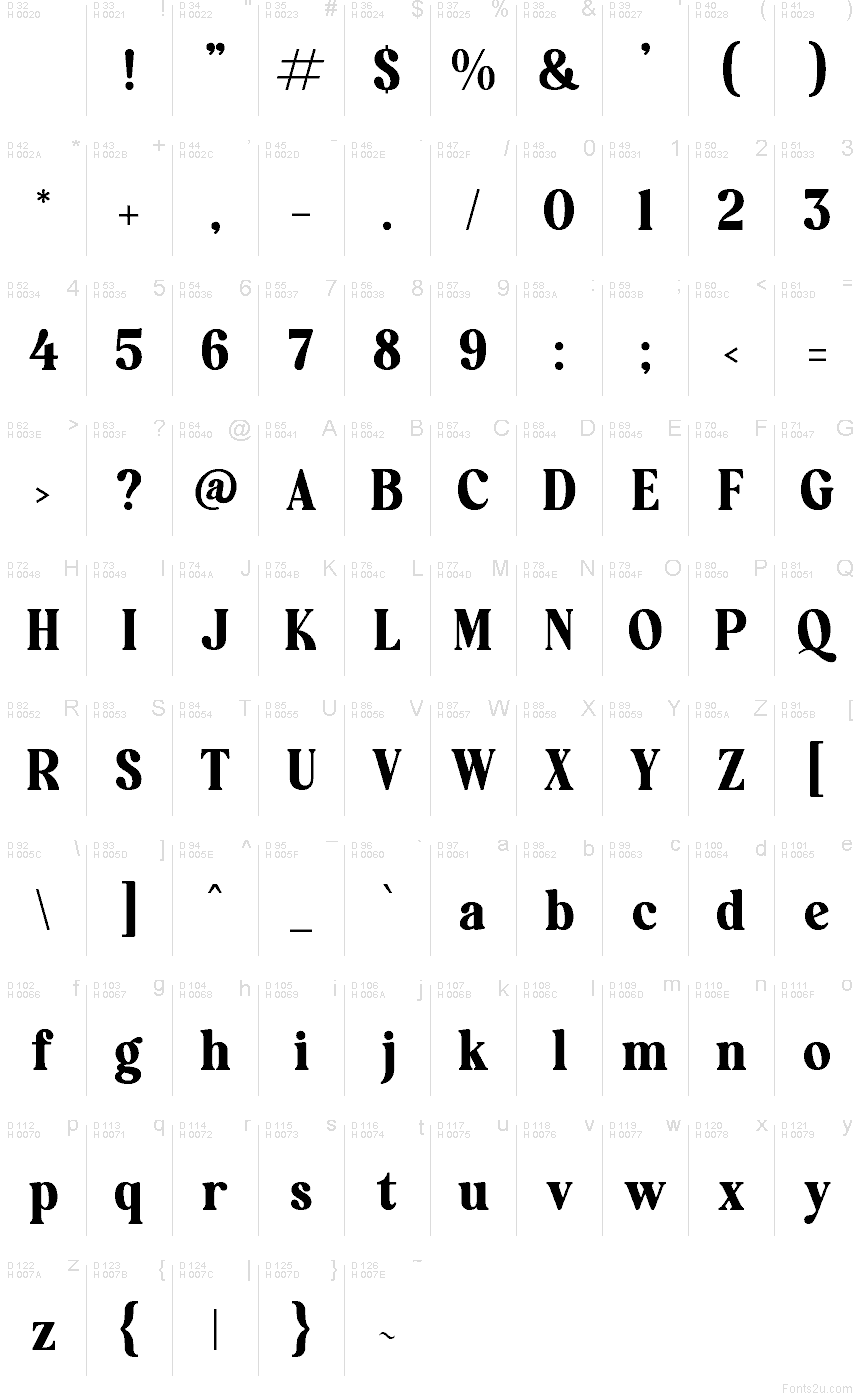
Rubita Smile by TimelessType.co is a free serif font with a warm, friendly editorial tone. The letters mix soft, rounded curves with tall, high-contrast strokes, so the font feels classic at first glance but not formal or severe.
It fits naturally in magazine headers, boutique packaging, beauty branding, book covers, and cafe menus, where that gentle contrast gives short wording a dressed-up look without going stiff. As a free font, it also makes sense for quote graphics, title cards, and logo-style wordmarks, especially when you want serif letters that feel welcoming rather than literary or antique.